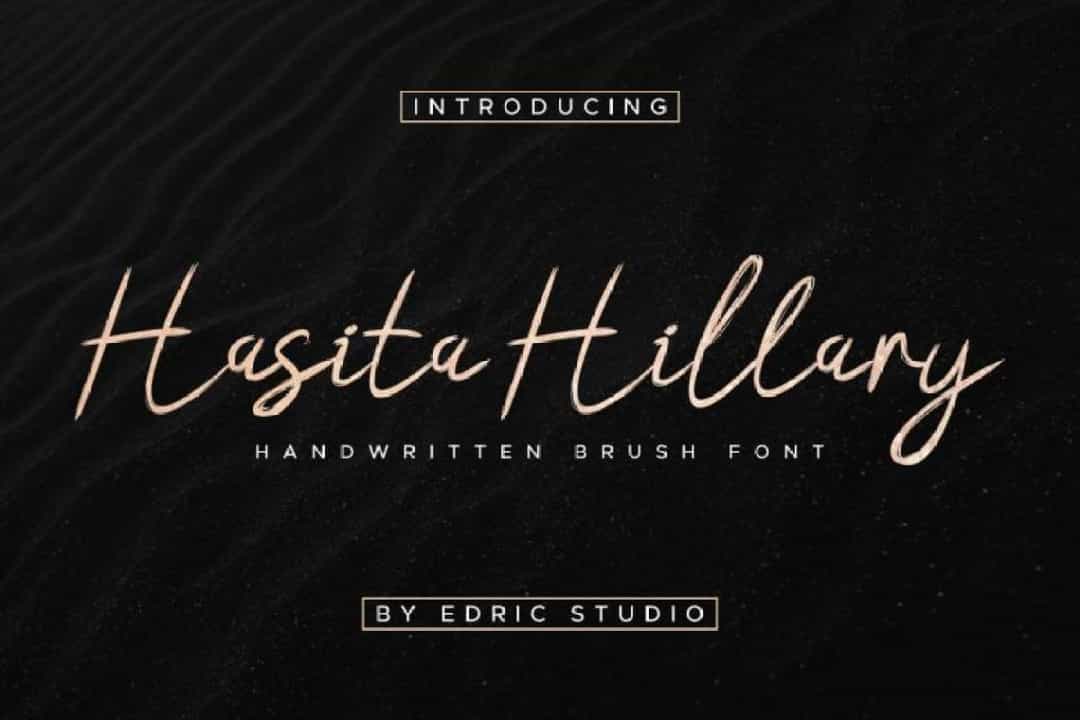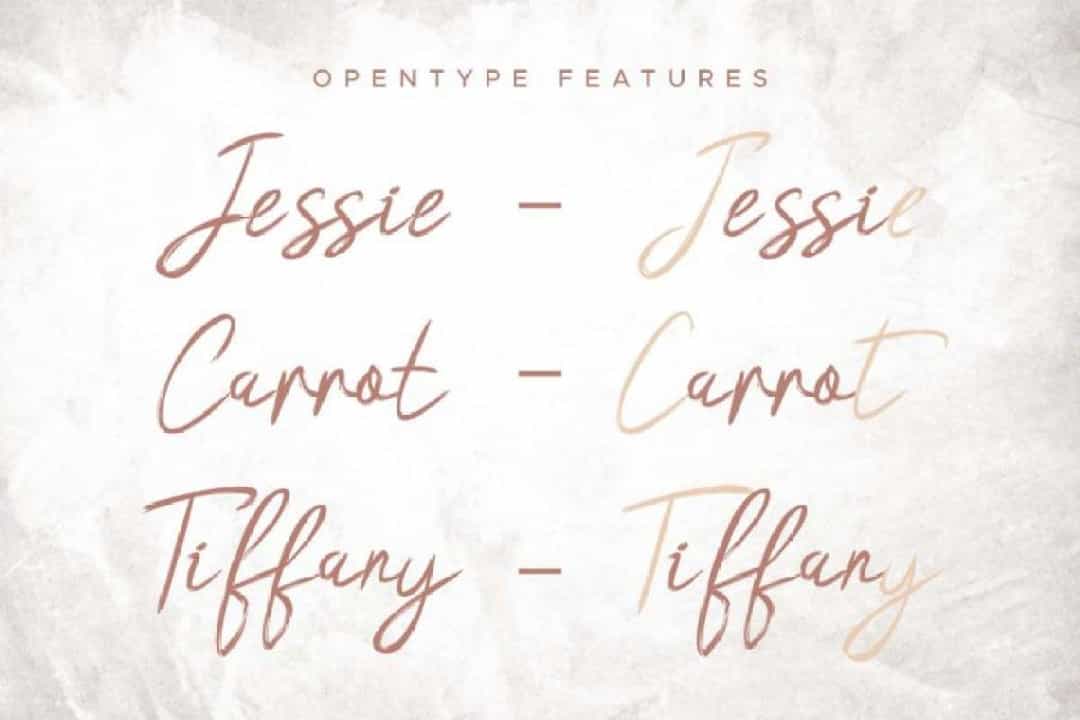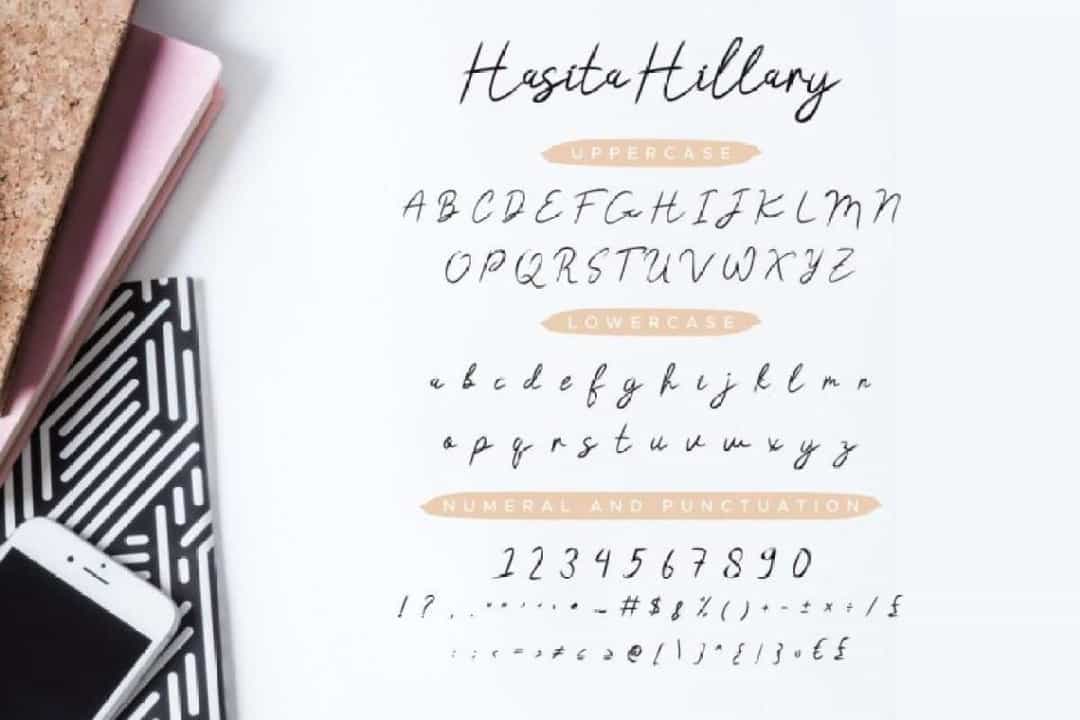
Hasita Hillary Font is a brush calligraphy typeface which has an exclusive and elegant style. The font has a perfect characters set, properly kerned and spaced. The style character of this font is grace, beauty, elegance and the classic brush calligraphic.